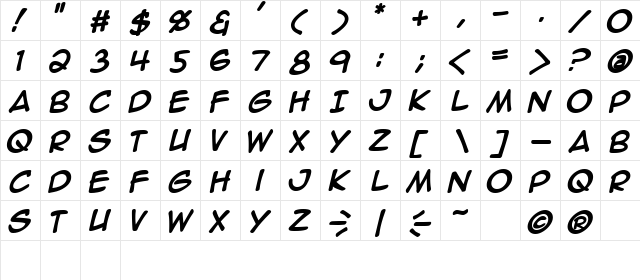
Complete Anime Ace Bold glyph index. Displaying only characters natively supported by Anime Ace Bold font.
Anime Ace is a composed and adaptable typeface that performs quietly and consistently across a wide range of design contexts. Its bold stroke weight gives it real presence on the page.